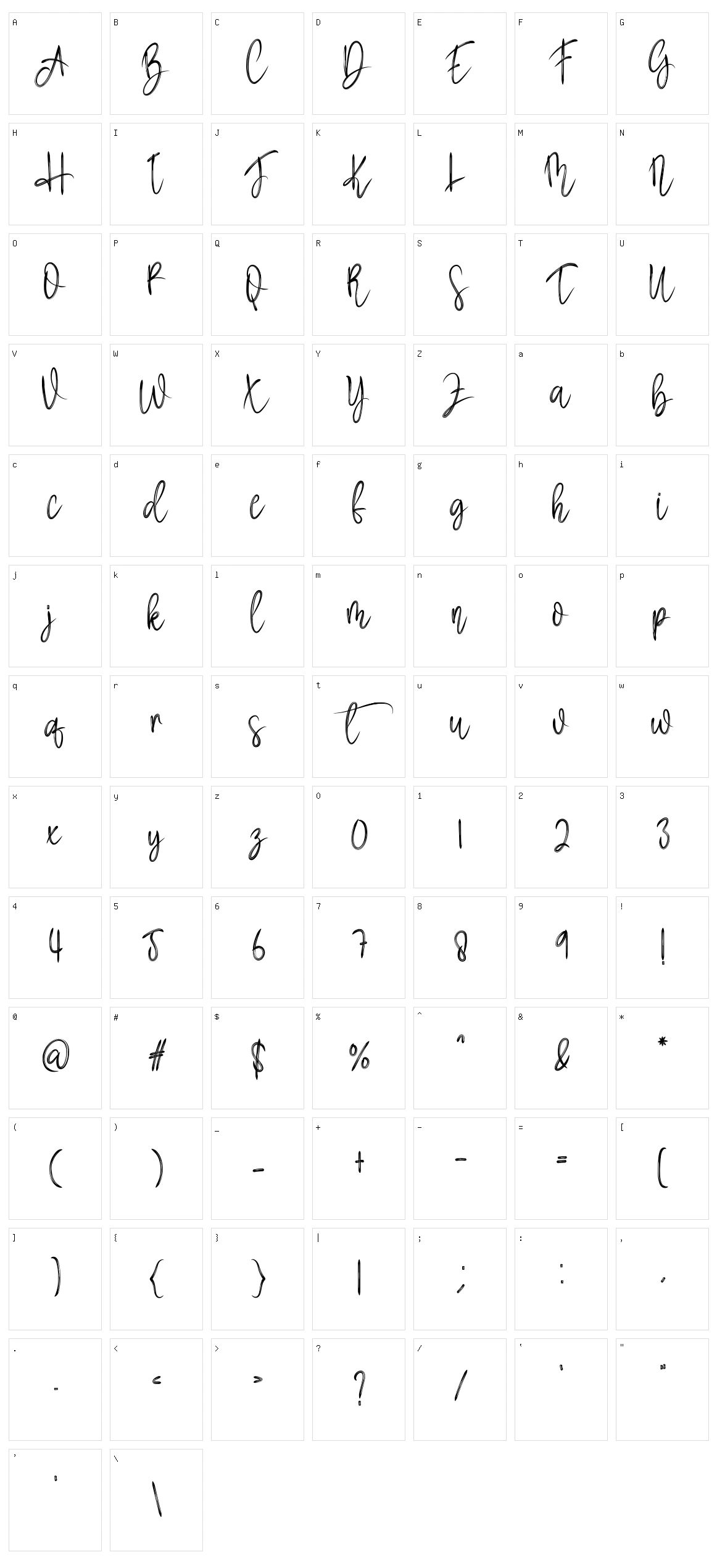
The free font Hamster Signature is carefully designed by Scratchones, showcasing a thoughtful balance of creativity and usability and falls under the Script font style. When you download the ZIP file, it contains only 111.93 KB of font files, making it lightweight and quick to download. Please review the license details below to understand permitted usage and distribution rights. If license information is not available, we recommend using this font for personal projects only or contacting the author directly for commercial usage permissions.